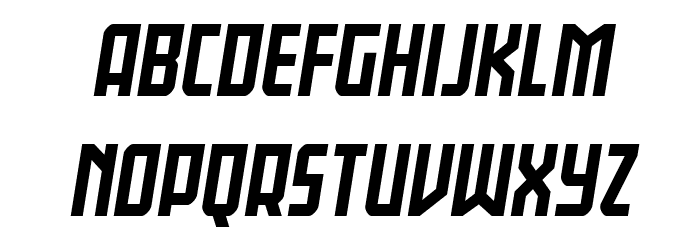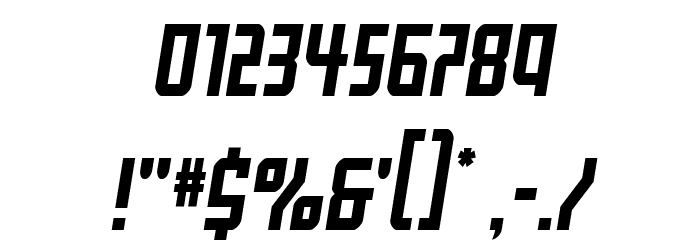
Gotham Knights Semi-Italic Font
This font features a bold and dynamic style with a semi-italic slant, giving it a sense of movement and energy. The characters are tall and narrow, with sharp angles and clean lines that create a modern and edgy appearance. The uppercase letters are particularly striking, with a strong presence that commands attention. The numerals and special characters maintain the same boldness and angularity, ensuring consistency across all elements. This font is well-suited for projects that require a strong visual impact and a contemporary feel.
A bold, semi-italic font with sharp angles and a modern, dynamic style.
- Proposed Projects: Ideal for branding, sports team logos, video game titles, and dynamic poster designs.
- Character Spacing: Tight